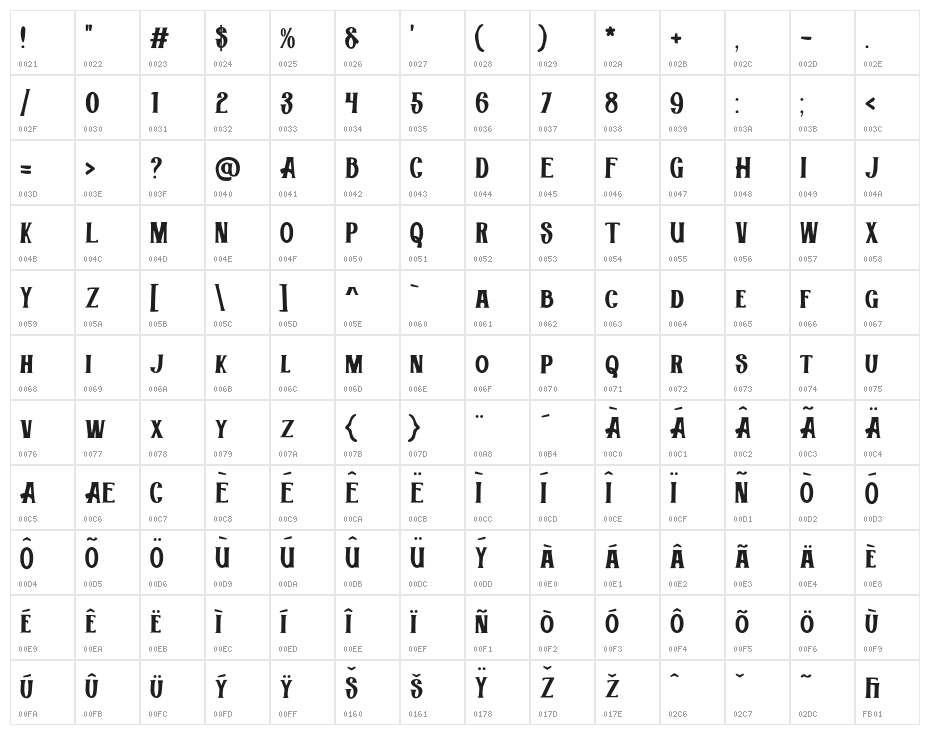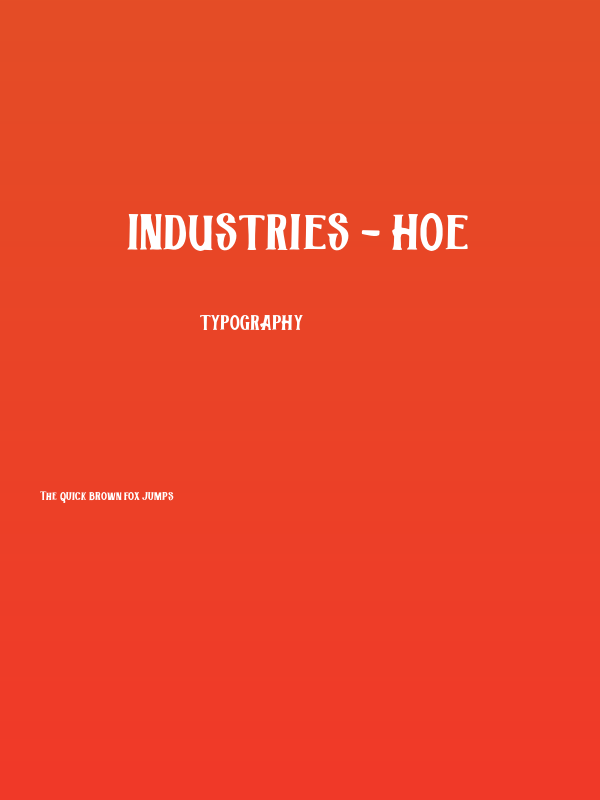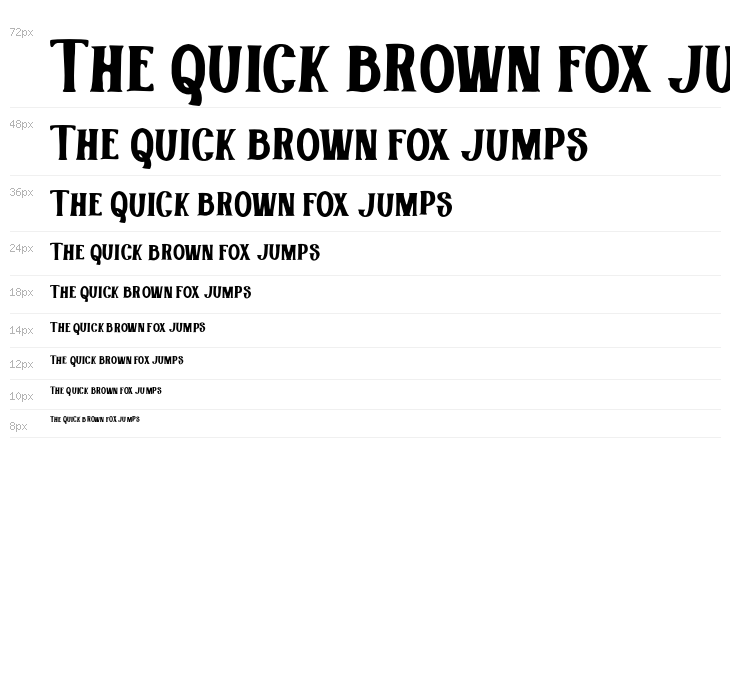
Industries - Hoe Font
Industries - Hoe Description
This font features a bold and dynamic style with a distinct vintage flair. The characters are designed with a strong presence, showcasing thick strokes and slightly condensed forms. The uppercase letters exhibit a unique blend of sharp edges and rounded curves, giving them a robust and eye-catching appearance. The lowercase letters maintain consistency with the uppercase, offering a cohesive look across all text. Numbers and special characters are crafted with the same attention to detail, ensuring readability and style. The overall design is reminiscent of early 20th-century typefaces, making it ideal for projects that require a touch of nostalgia and strength.
Overall StyleVintage
Proposed ProjectsIdeal for branding, poster design, vintage-themed projects, and headlines.